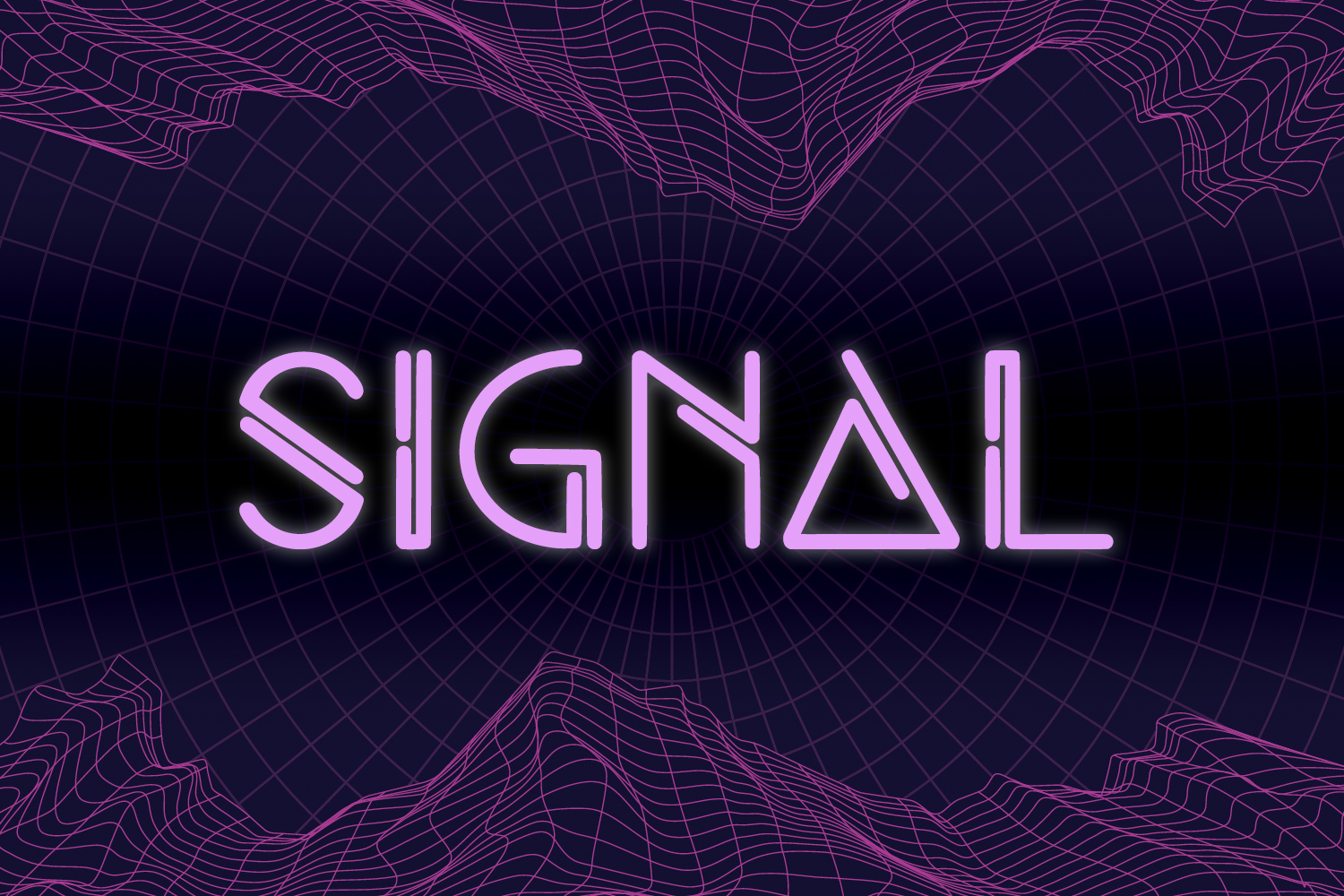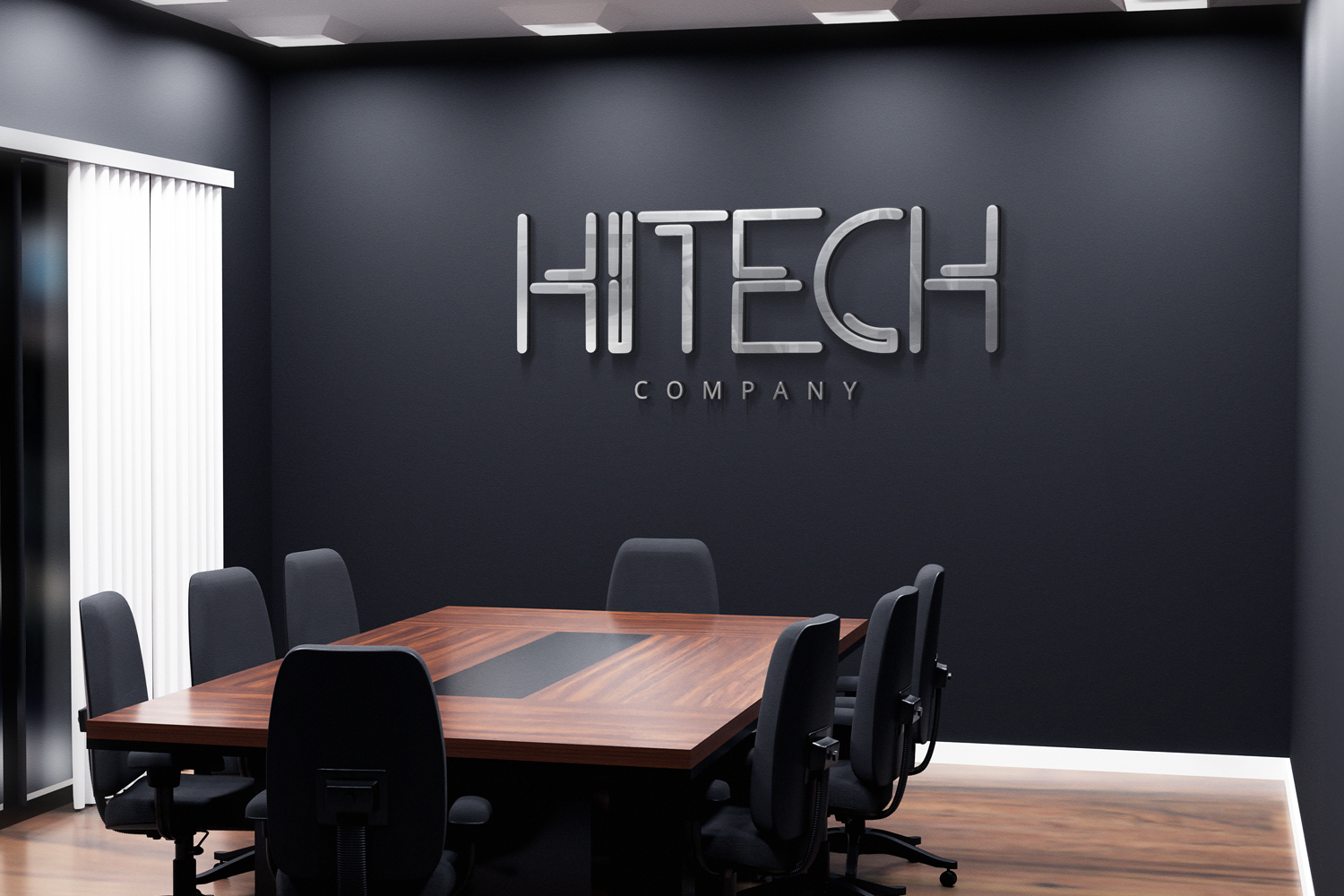
Space Game Font
Space Game Display Font
This is a display font with fun and futuristic feels. It will be perfectly used for Branding, Logo Design, Lettering, Logotype, Clothing, Poster, magazine, packaging, posters, shopping bags, t-shirts, book covers, photography, special events and other design project.